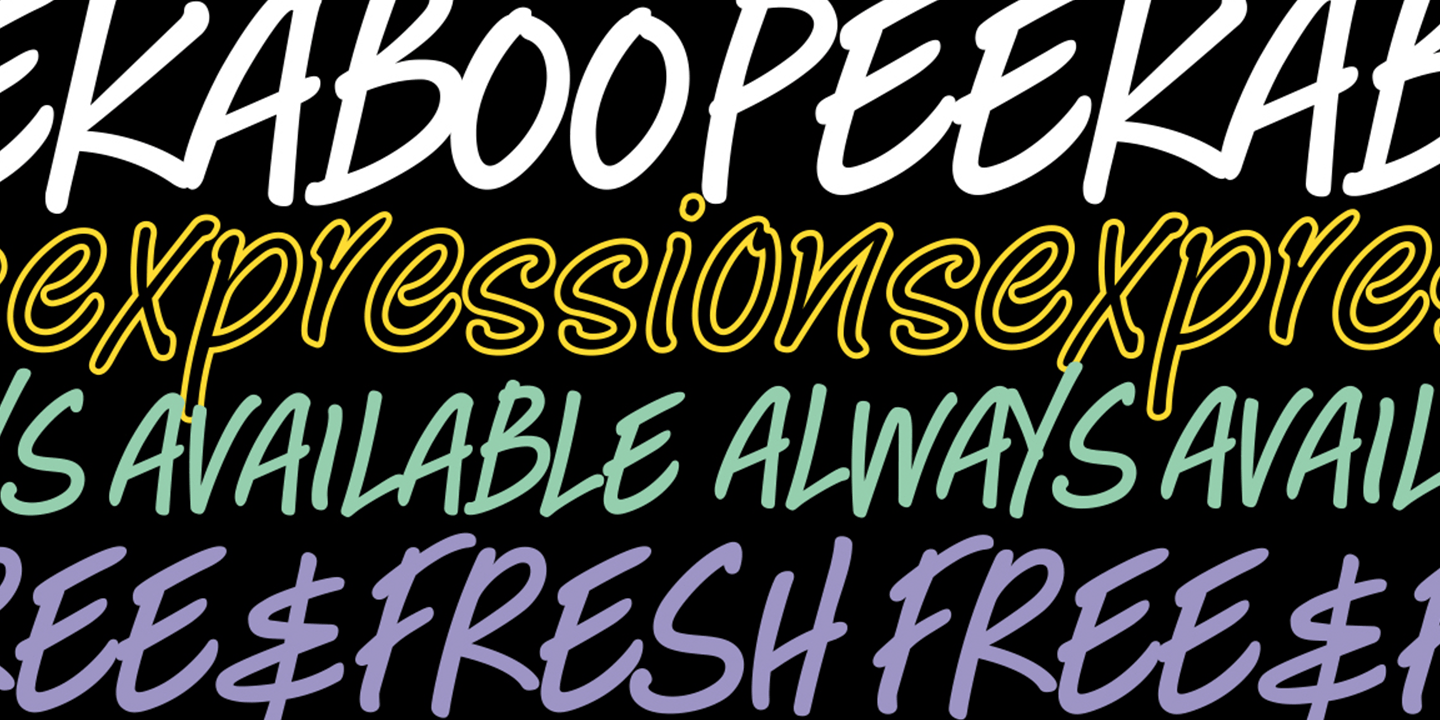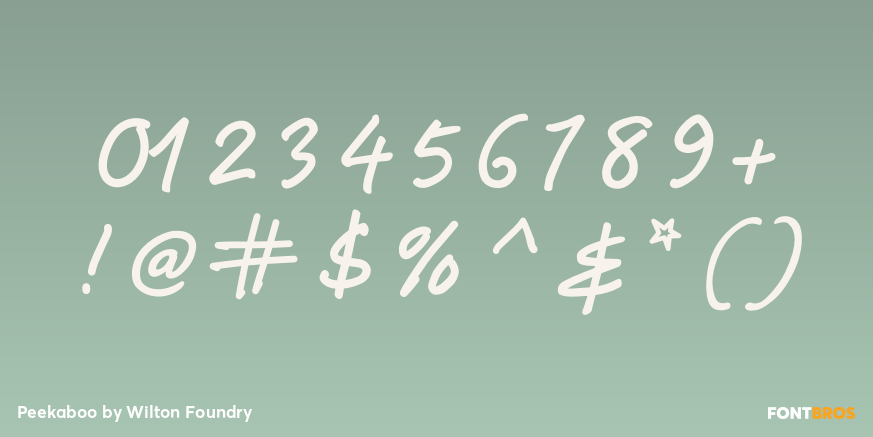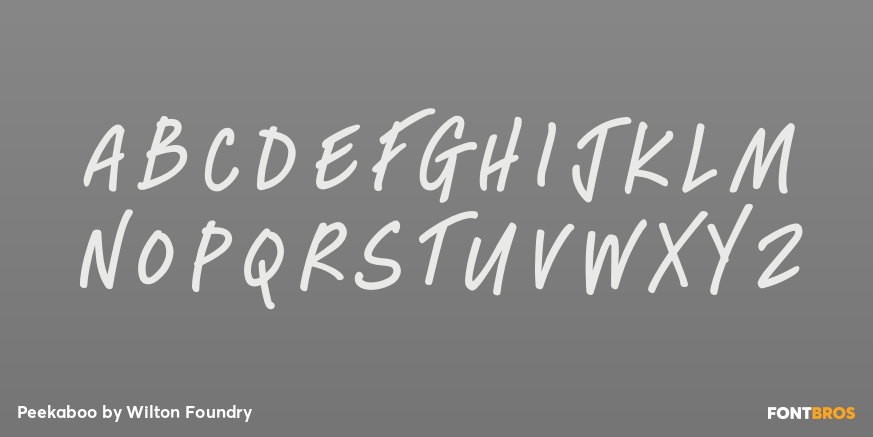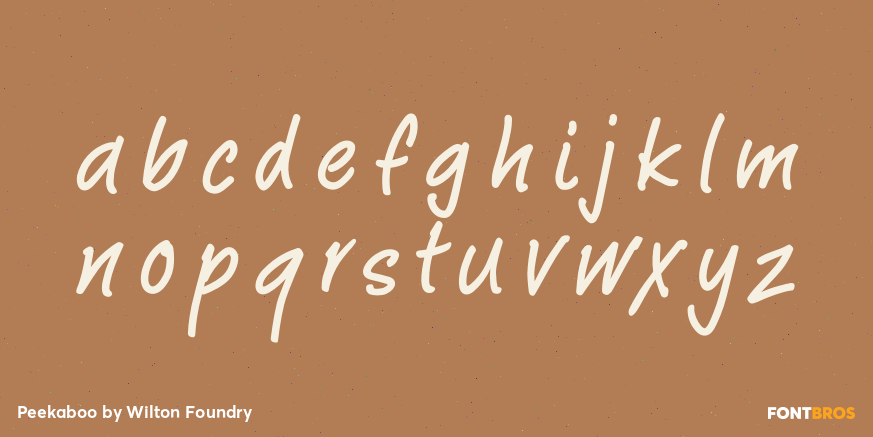
Peekaboo
Font Family by Wilton Foundry
Buy NowFresh and spontaneous, Peekaboo can be used for in all types of situations such as artwork descriptions, logos, taglines, supportive text, body copy and is also ideal for scrapbooking.